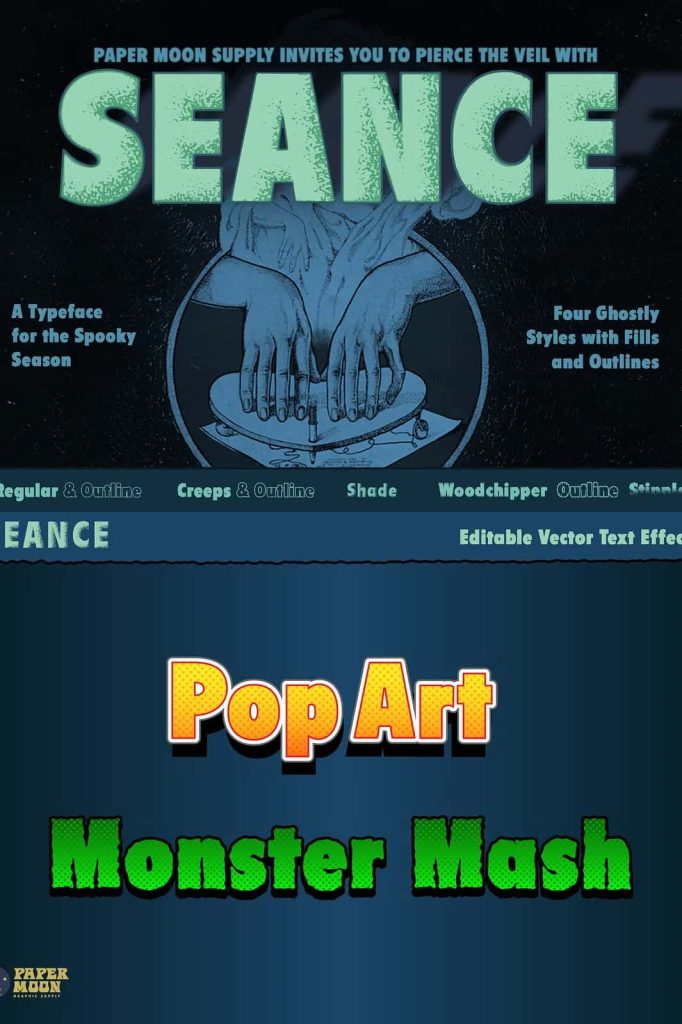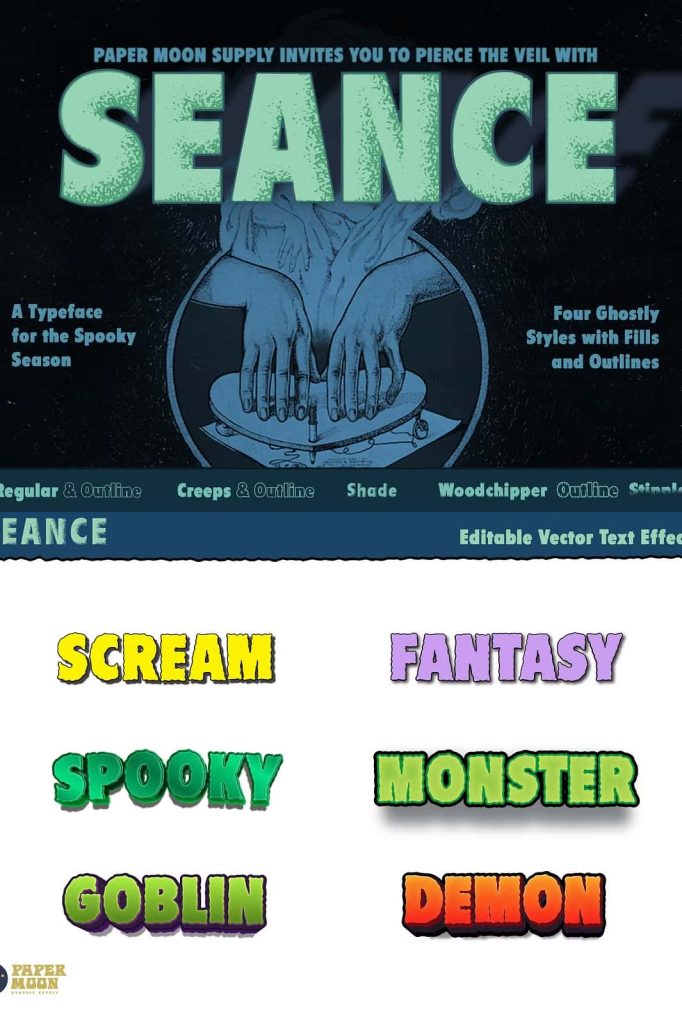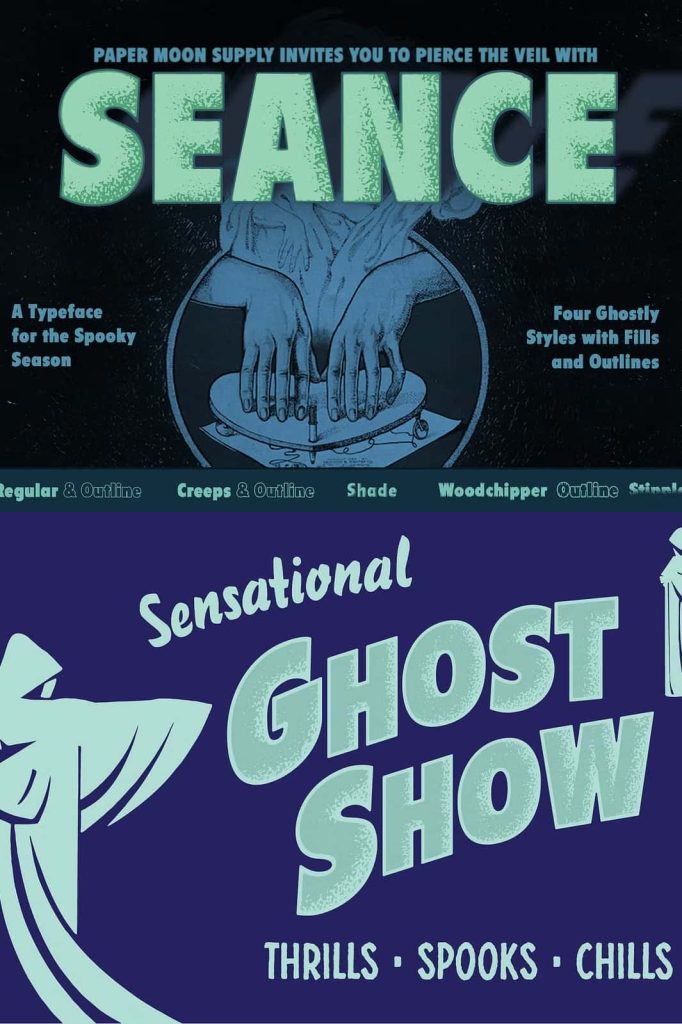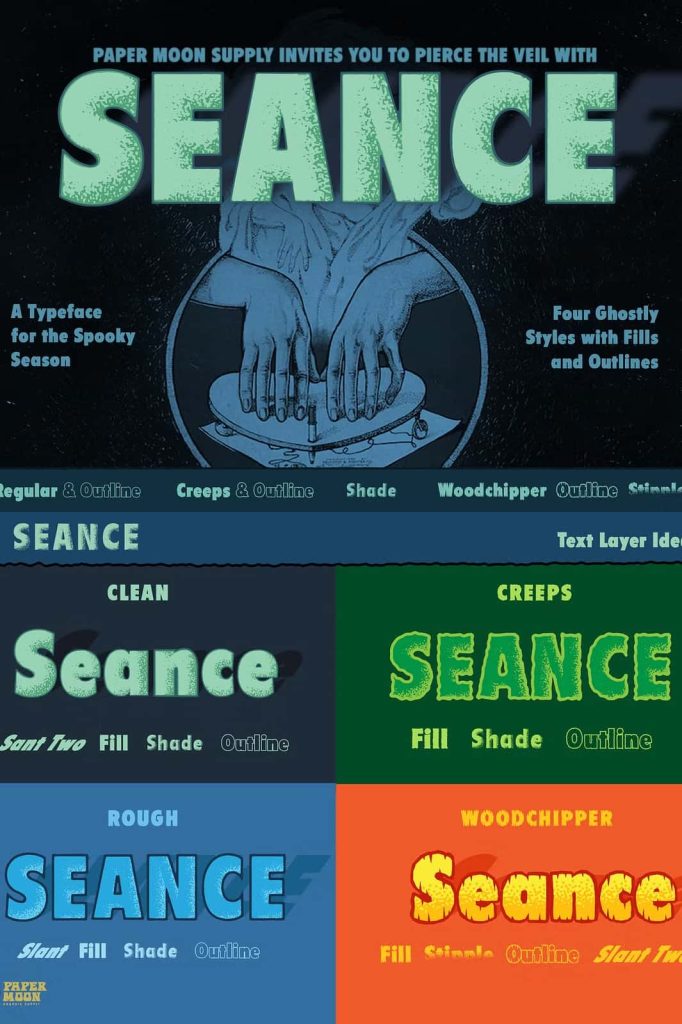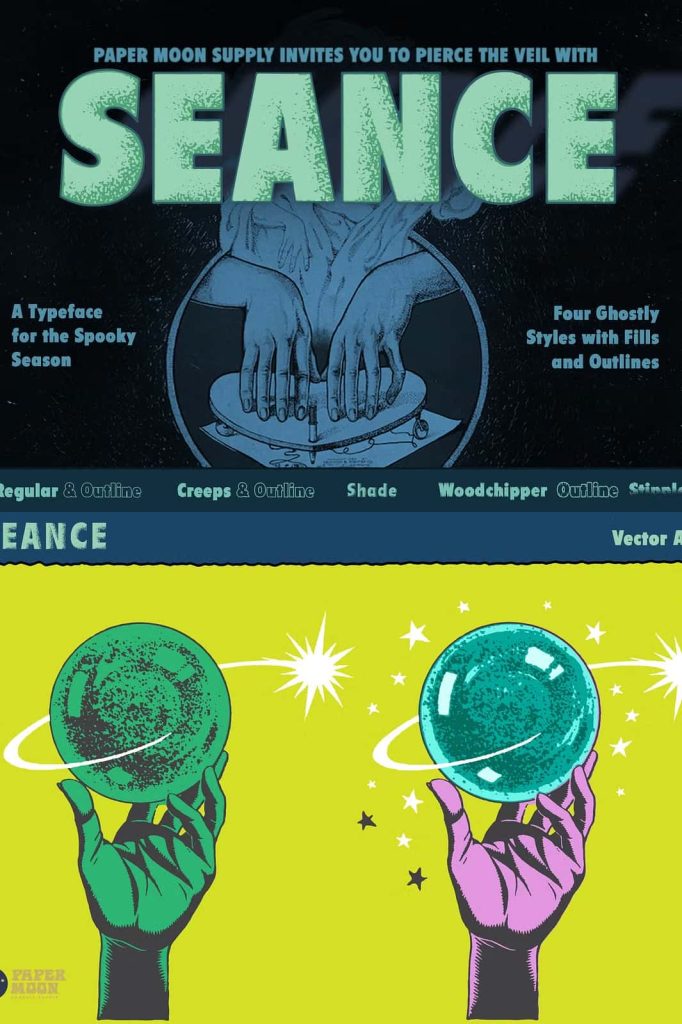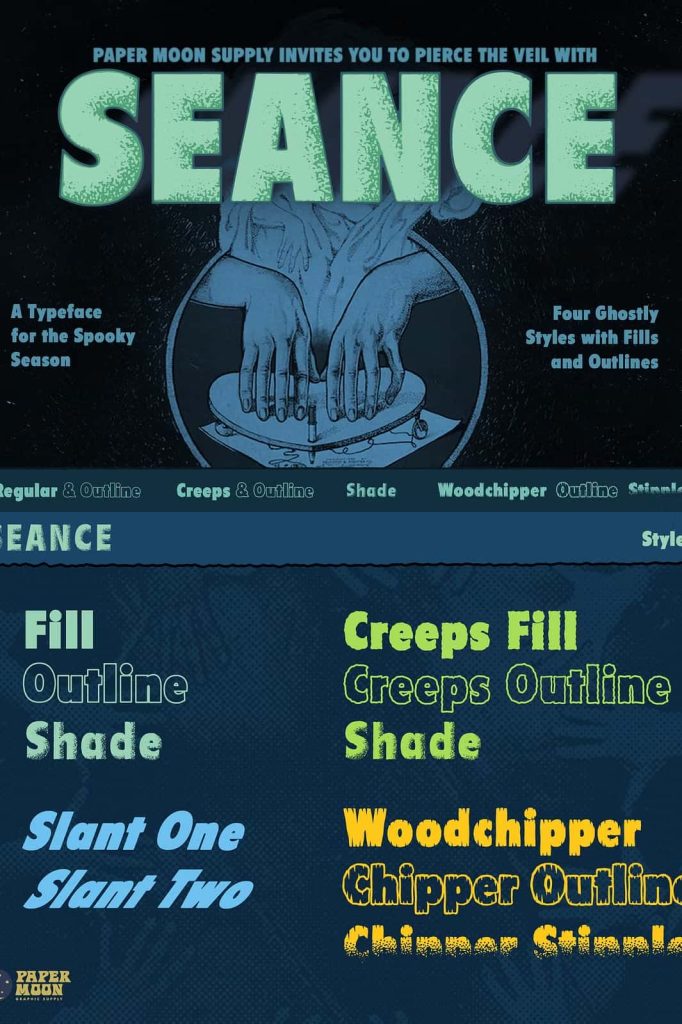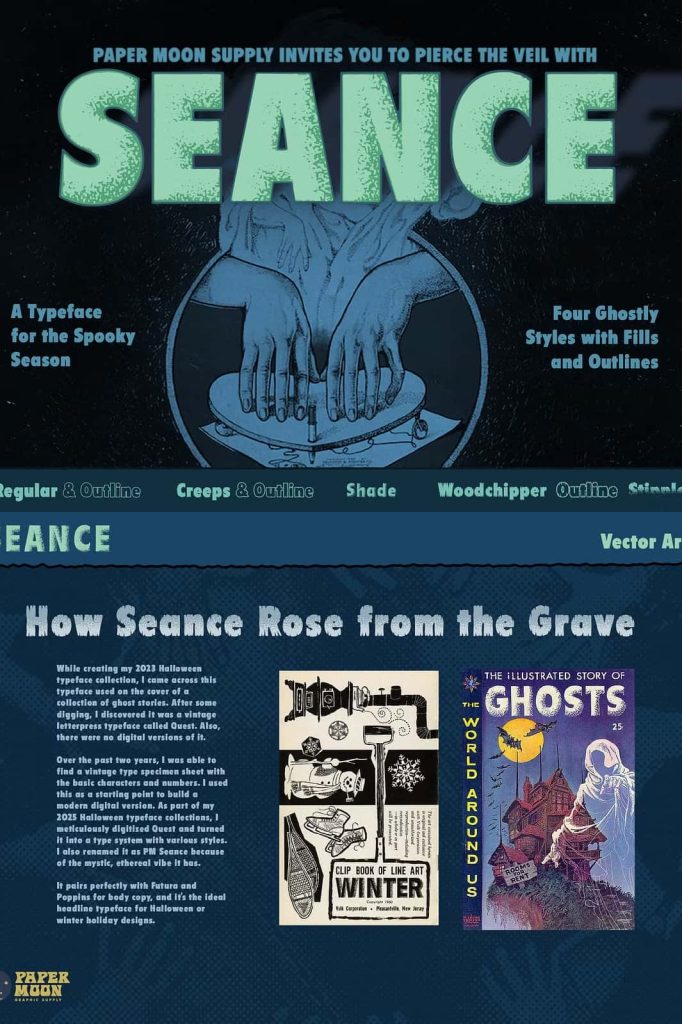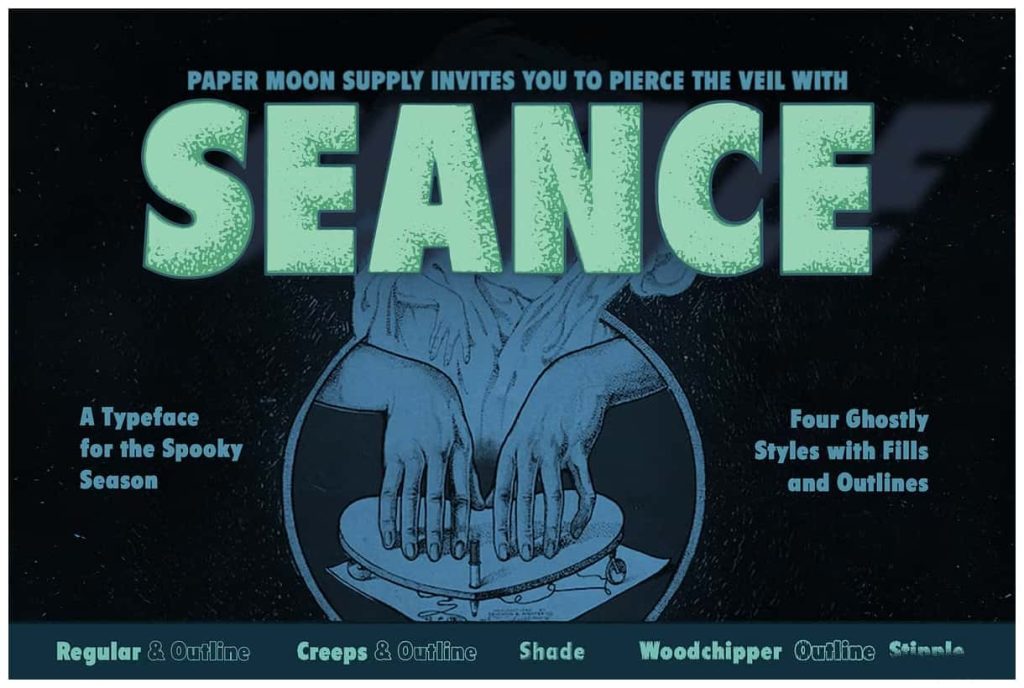
PM Seance Design Collection
Peirce the veil with our Seance Design Collection — a multi-style font and vector system crafted to add bold, authentic retro style to your spooky season designs. Inspired by vintage Spiritualism ephemera, mid-nite Spook Show posters, pulp covers, horror comics, and show card hand-lettering.